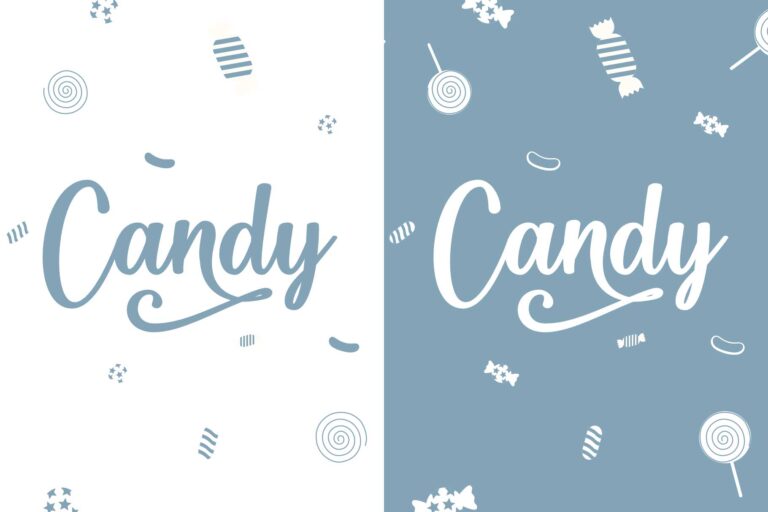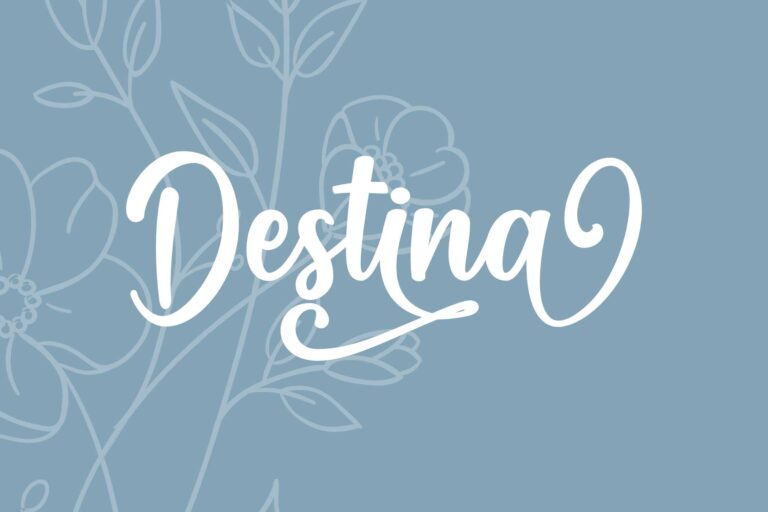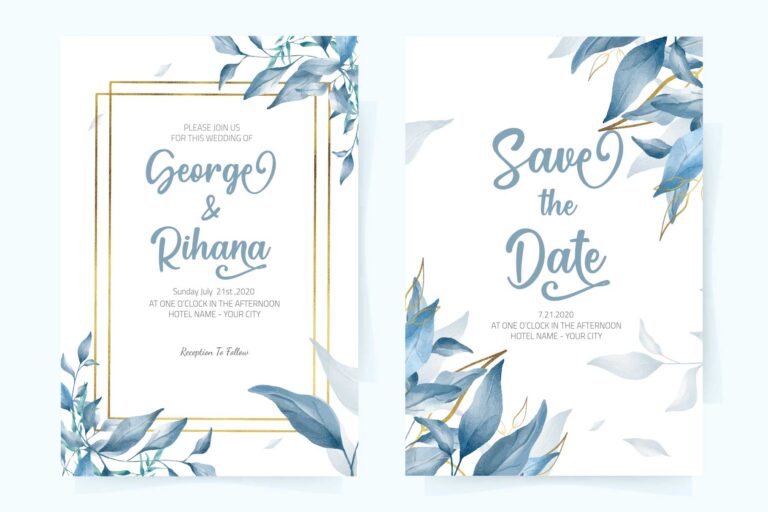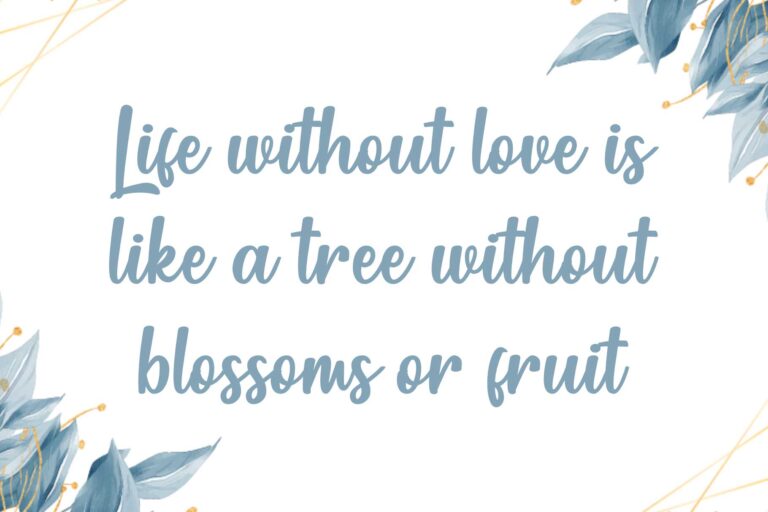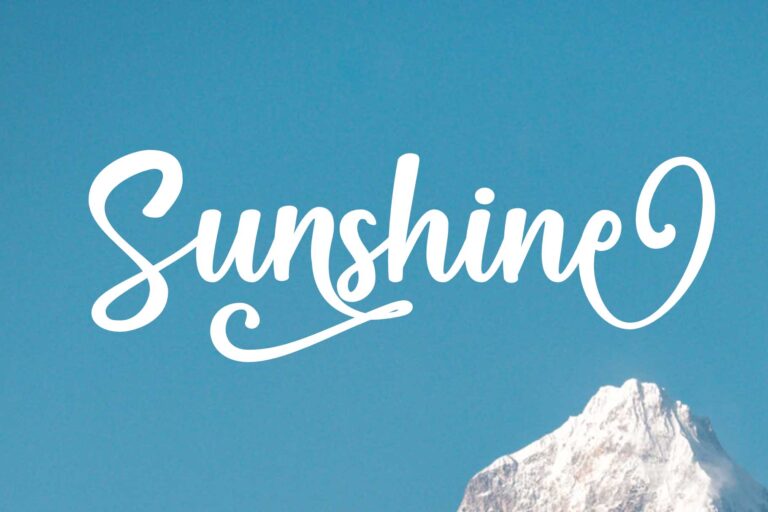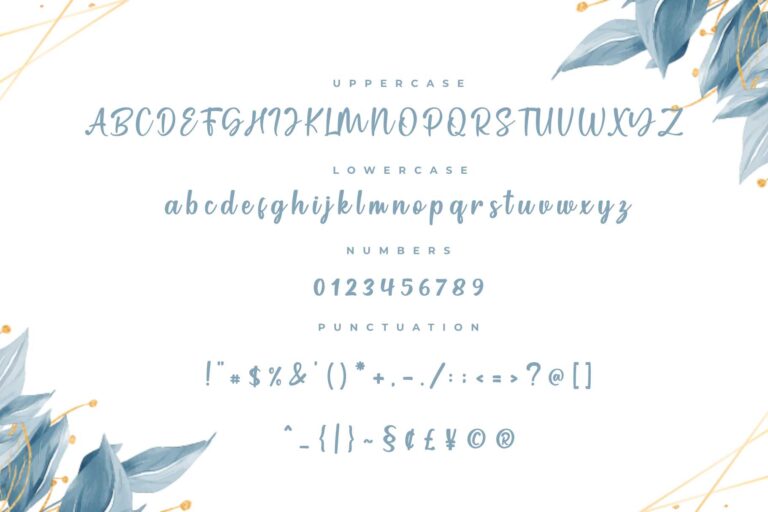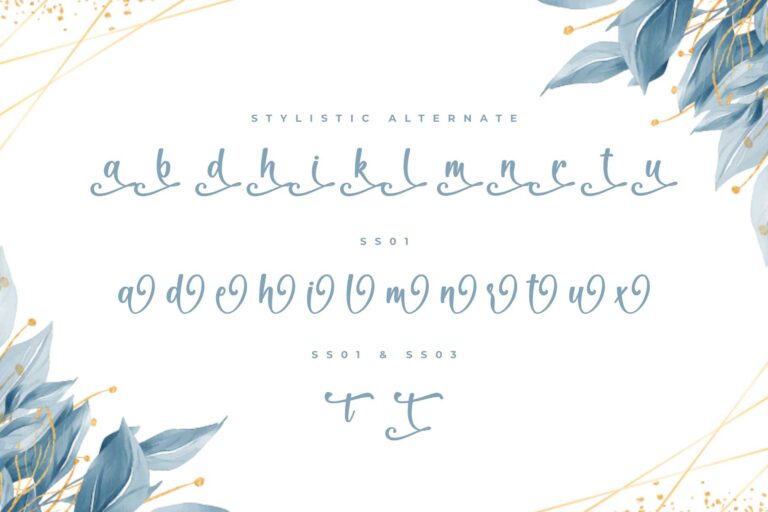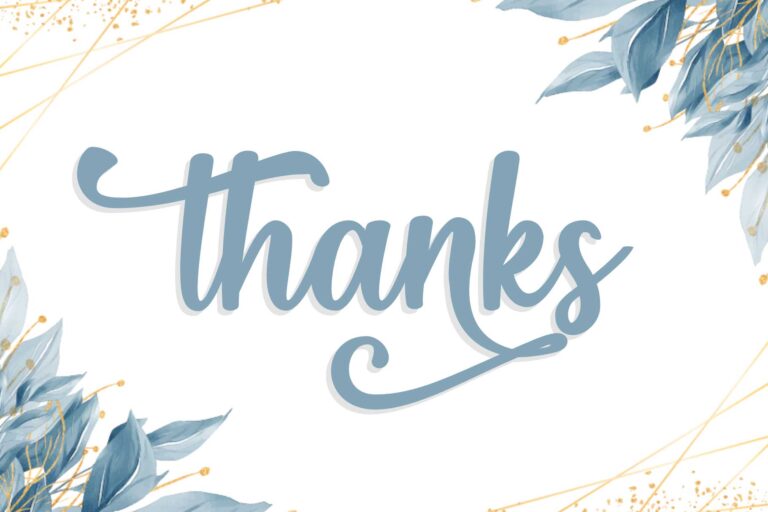
- Gather Script Font
Gather is a cute and casual handwritten font with an incredibly friendly feel. Whether you’re looking for fonts for Instagram or calligraphy scripts for DIY projects, this font will turn any creative idea into a true piece of art! Also, gather is also equipped with various kinds of alternate which is very suitable for your needs, especially craft or DIY project